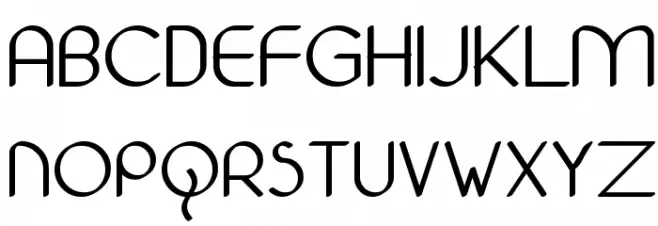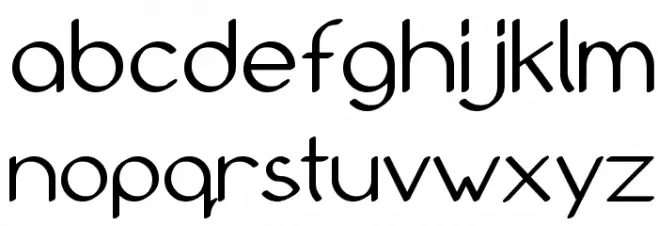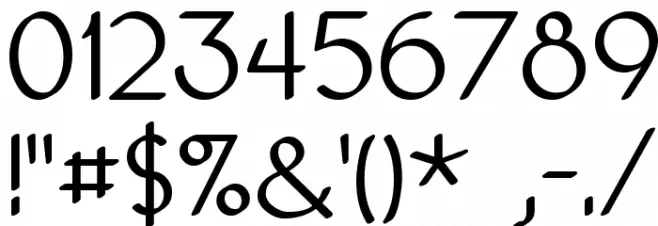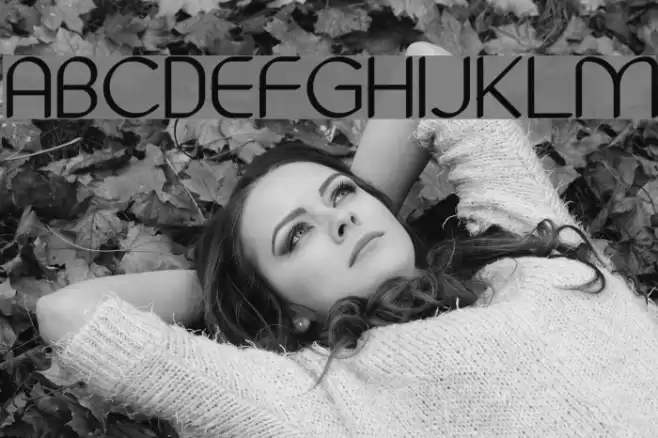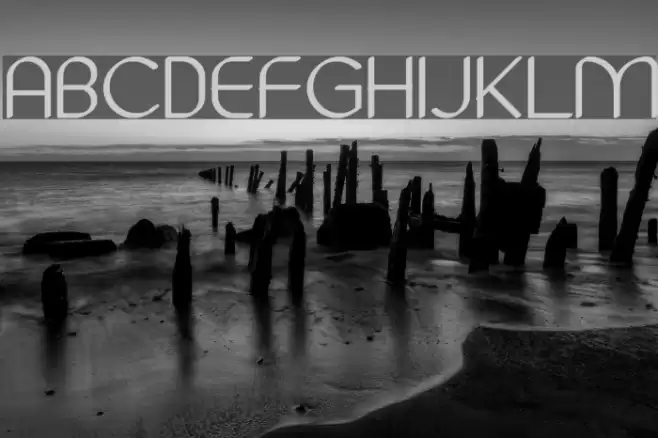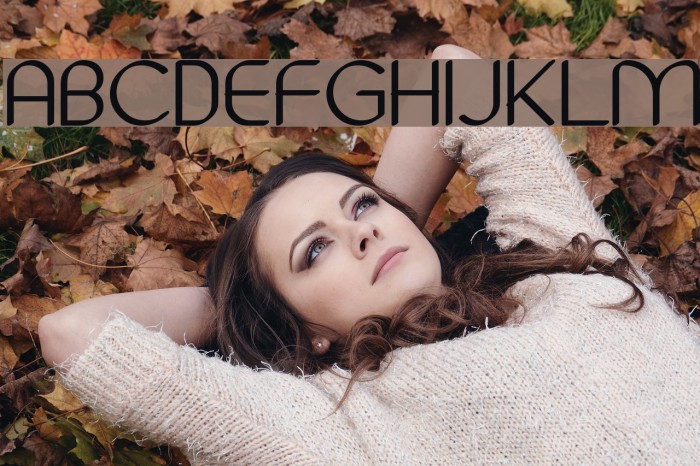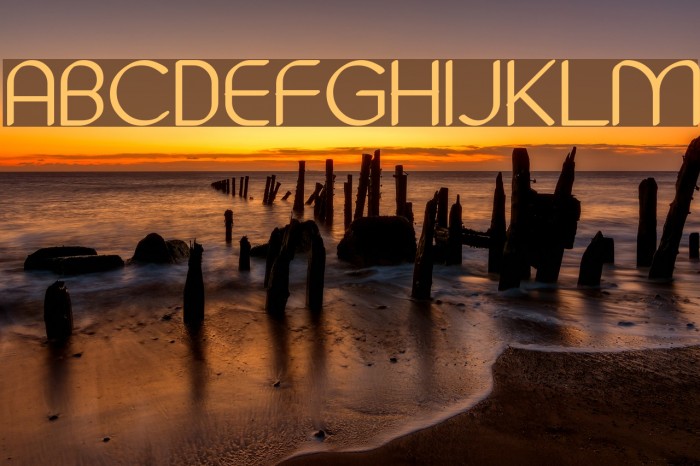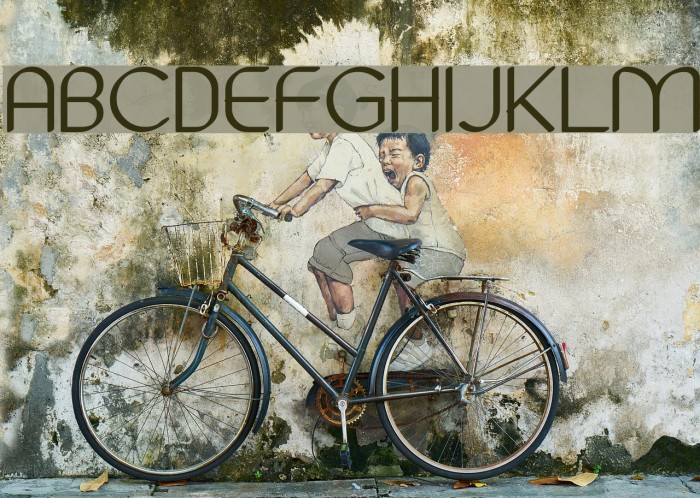
Bolonewt
This font features a modern and sleek design with rounded edges and a geometric structure. The characters are uniform in width, providing a clean and balanced appearance. The uppercase letters are bold and prominent, while the lowercase letters maintain a consistent style with slightly softer curves. The numerals are clear and easy to read, matching the overall aesthetic of the font. Special characters are well-integrated, maintaining the same rounded and geometric style. This font is versatile and can be used in various design contexts, offering a contemporary and professional look.
A modern, geometric font with rounded edges and uniform width.
- Proposed Projects: Ideal for branding, advertising, digital interfaces, and modern print media.
- Use Case: Headlines, Logos, Digital interfaces